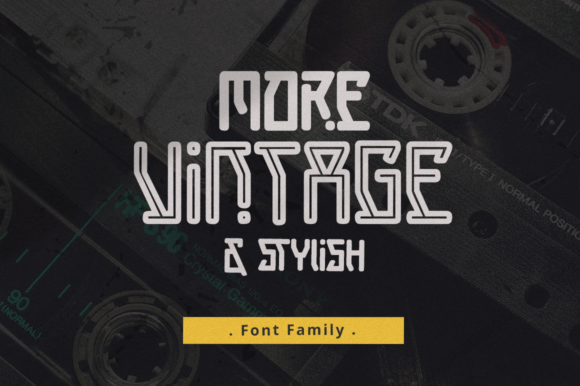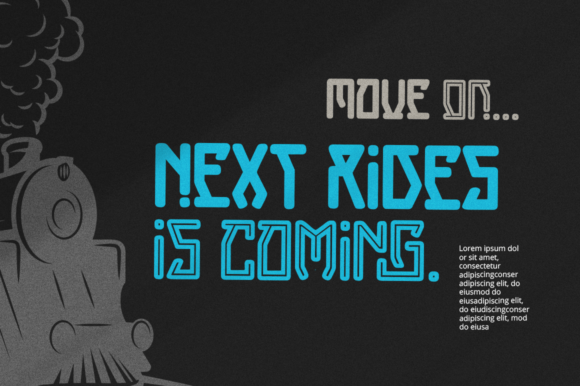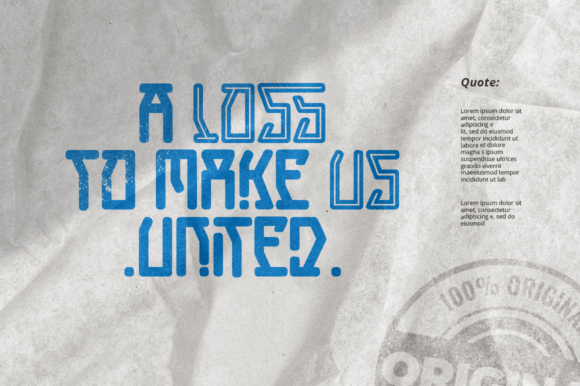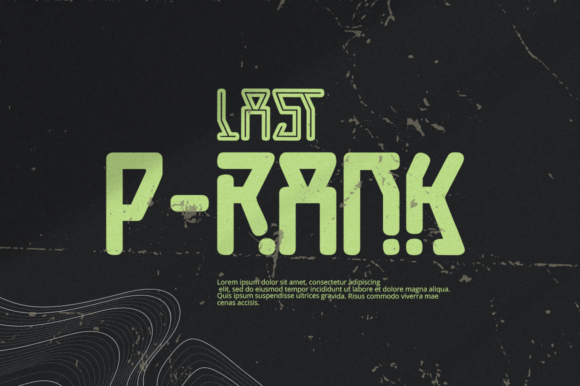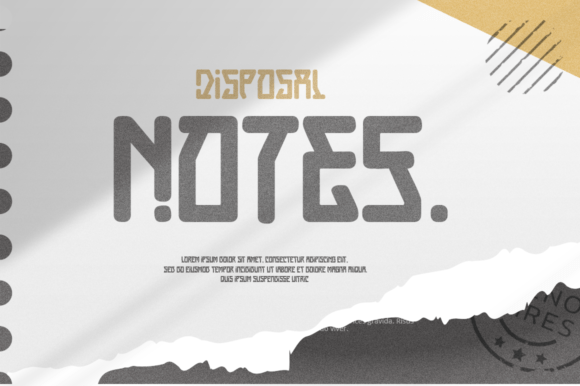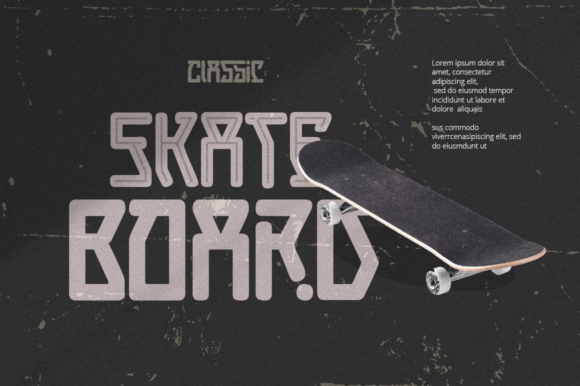
Introduction to Sangor Font Font
Fonts play a crucial role in design, and the Sangor Font font is a typeface that brings both character and versatility to any project. Whether you’re working on a branding project, a website, or a print design, the Sangor Font font offers a unique style that can elevate your work.
Sangor is an unique vintage condensed font.
This font designed all round corners that makes it look more soft and charm Sangor is regular and outline all-caps font that is great for short headlines and titles, but it looks great in print design, vintage mood board, branding, logotypes, titles, editorial design and modern and vintage design.
Key Features of Sangor Font Font
Why Choose Sangor Font Font?
The Sangor Font font is more than just a typeface – it’s a design tool that helps you communicate your message with style and clarity. Its unique character set and versatile design make it suitable for a wide range of applications, from elegant invitations to bold headlines.
With its carefully crafted letterforms and balanced proportions, the Sangor Font font ensures readability and visual appeal across all mediums.
What makes Sangor Font font special?
The Sangor Font font stands out with its unique design, exceptional readability, and versatility across various design applications.